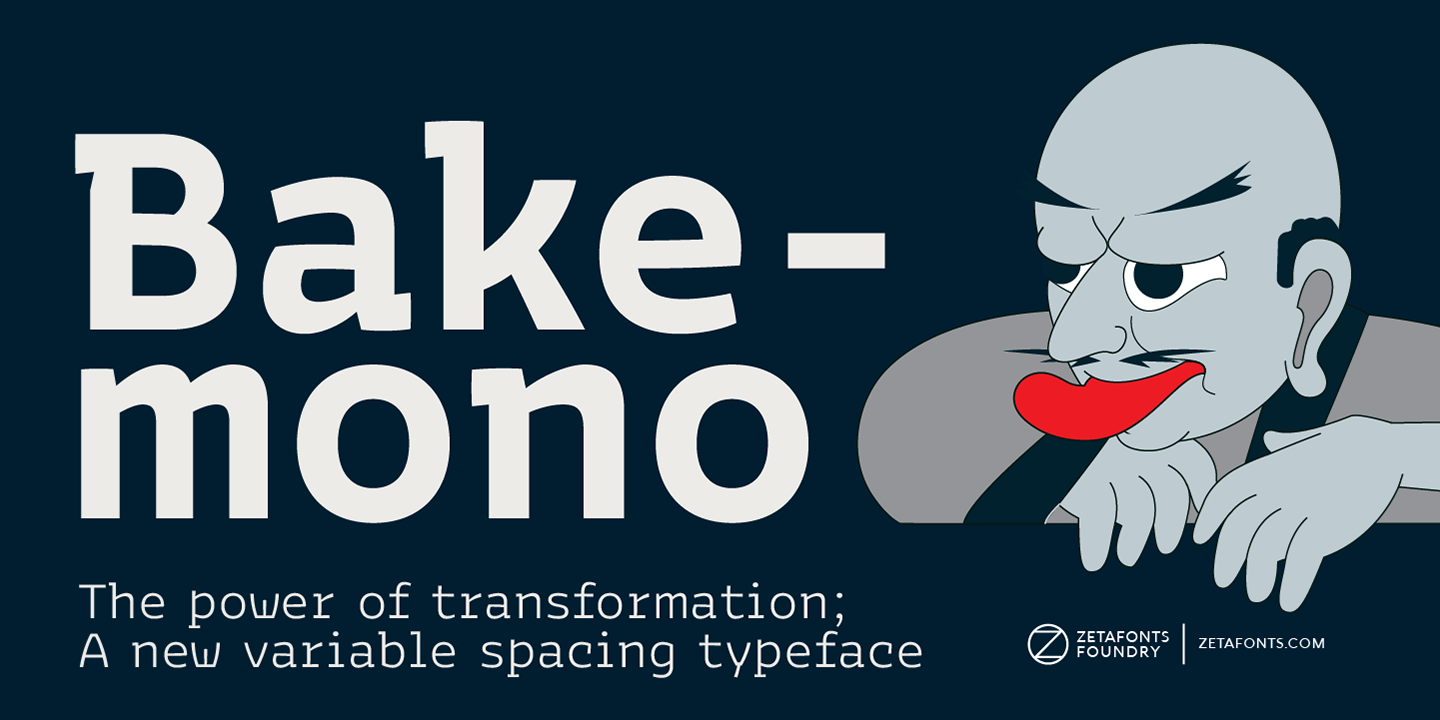
Bakemono Font is perfect for horror gaming graphics, supernatural anime titles, mysterious folklore materials, Japanese horror films, dark fantasy novels, monster-themed entertainment, occult bookstore branding, Halloween event promotions, supernatural investigation shows, and spine-chilling theatrical productions.
What makes Bakemono Font exciting is its supernatural mystique and otherworldly presence that captures the essence of Japanese folklore with haunting elegance and spectral sophistication. This mysterious typeface embodies the spirit of supernatural entities with its ethereal character forms and monster-inspired proportions that evoke shadowy figures glimpsed in moonlight, ancient spirits dwelling in forgotten temples, and the kind of otherworldly presence that exists between the realm of the living and the supernatural. The font's spectral character creates an immediate sense of mystery and the kind of supernatural allure that draws audiences into otherworldly narratives.
Bakemono Font family includes regular weight with supernaturally crafted character designs featuring ghostly curves and otherworldly proportions. The typeface maintains excellent readability while showcasing its distinctive supernatural personality through mysteriously designed letterforms that seem to shift between visible and invisible like spirits manifesting in the physical world.
Horror entertainment professionals consistently choose Bakemono Font Free Download for projects requiring authentic supernatural appeal and otherworldly credibility. This remarkable typeface brings the power of supernatural mystery to brand communications, combining spectral aesthetics with folkloric authenticity to create unforgettable supernatural experiences. The supernaturally designed characters ensure haunting visual impact across all applications, making it essential for horror entertainment, supernatural brands, and any organization seeking to communicate the mesmerizing power of the supernatural and the otherworldly presence that comes from embracing the mysterious realm between worlds through Bakemono Font Free Download.